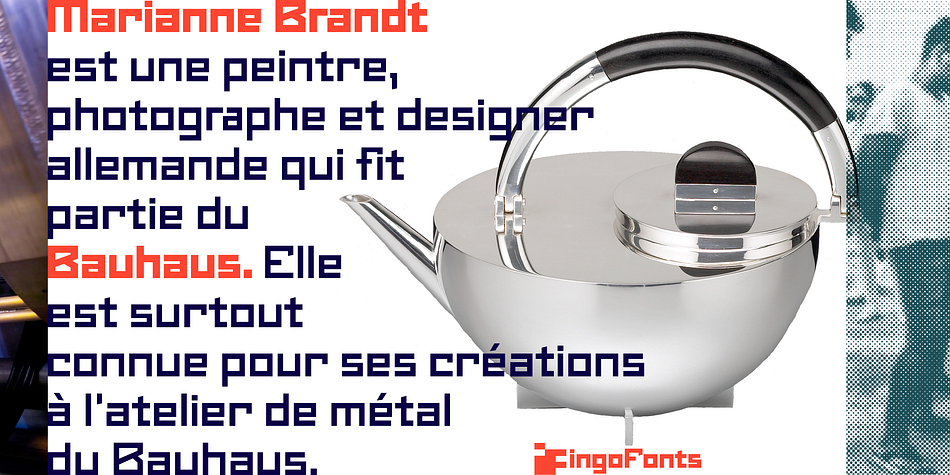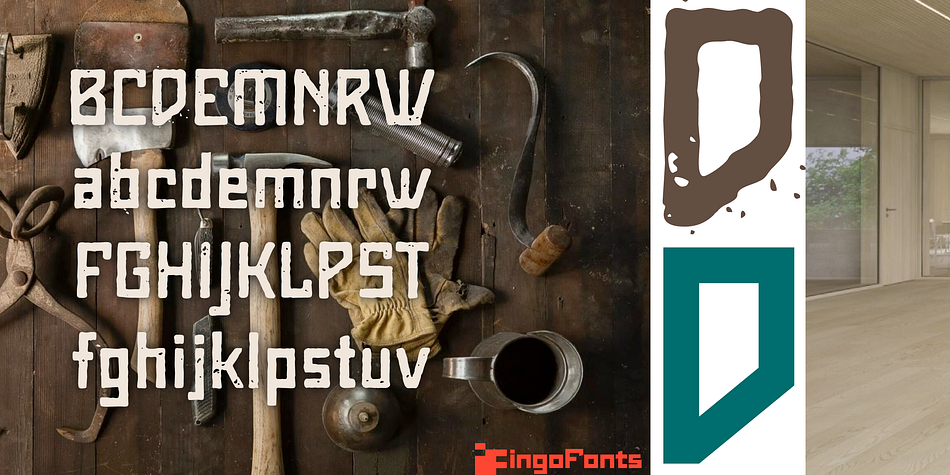
Maier's Nr.8
Designed by Ingo Zimmerman, Maier's Nr.8 is a display sans and grunge font family. This typeface has fourteen styles and was published by ingoFonts.
A handwritten ”font for technicians“ from ca. 1900. Very geometrical, rigid forms borrowed from the typical characteristics of Jugendstil / Art Nouveau.
This script is found in an old magazine which was issued sometime in the years shortly before WWI. The original copy, produced by means of a galvanized plate, is just 7 centimeters wide. It served as the model for technical professions in which, at that time, the captions of drawings were still done by hand. ingoFonts has not only digitized this beautiful typeface, we have also extended it to a whole family.
In »Maier’s Alte Nr. 8« special attention was given to ensure the ”uneven“ edges, typical of handwritten script, remained effectively noticeable even in the digitized form. As a result, this ”technical“ font retains a handmade touch, while »Maier’s Neue Nr. 8« is the clean version with exact contours.
The Art Nouveau forms, which are characteristic for the period of origin around the turn of the century around 1900, look especially pretty. The high degree of abstraction also seems strange in Maier’s No. 8, especially when the age of the original is known. It is generally assumed that it was not until the Bauhaus in the late 1920s that such “modern” typefaces were created. Maier’s No. 8 is a generation older! So many of today’s supposedly “ultramodern” typefaces look quite old in comparison.
In addition to the original two weights, Light and Bold, the Maiers Neue Nr. 8 got a regular and a extra-bold weight.
Furthermore, the Neue is also available in italics. Although this is only a slanted version, unlike common practice, it is inclined to the left.
Maier’s Nr. 8 Pro is suitable for all European languages. It includes ”Latin Extended-A,“ for Central and Eastern Europe incl. Turkish, and even Cyrillic and Greek, too.
The font includes several stylistic alternates as well as a number of ligatures.